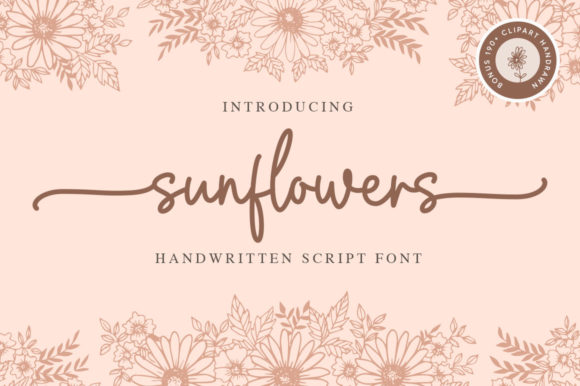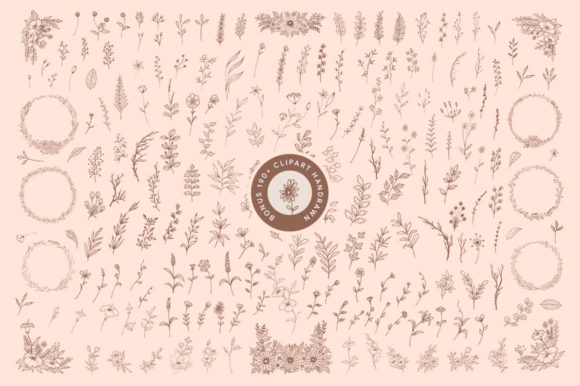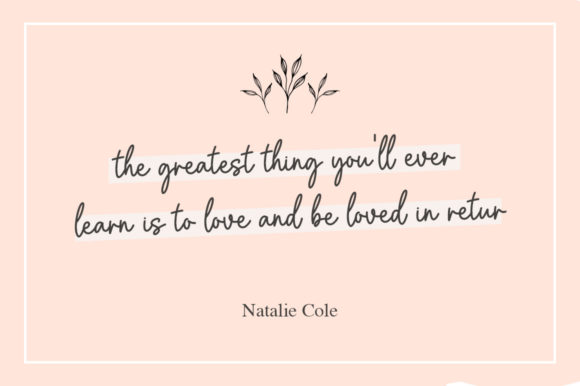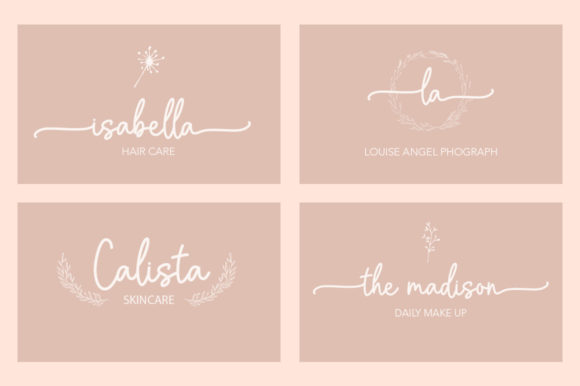
Sunflowers Font
About Sunflowers Font
Sunflowers is a lovely and timeless handwritten font. It is the best choice for creating eye catching logos, branding and quotes. This font is PUA encoded which means you can access all of the glyphs and swashes with ease!